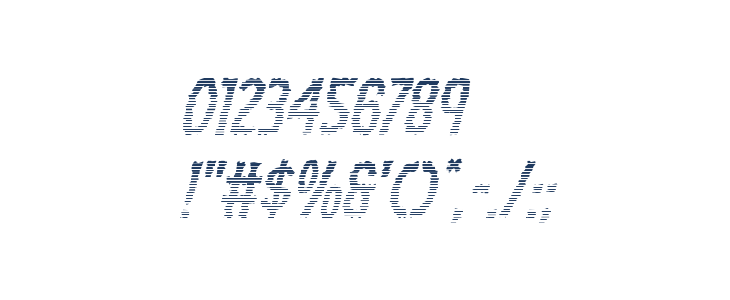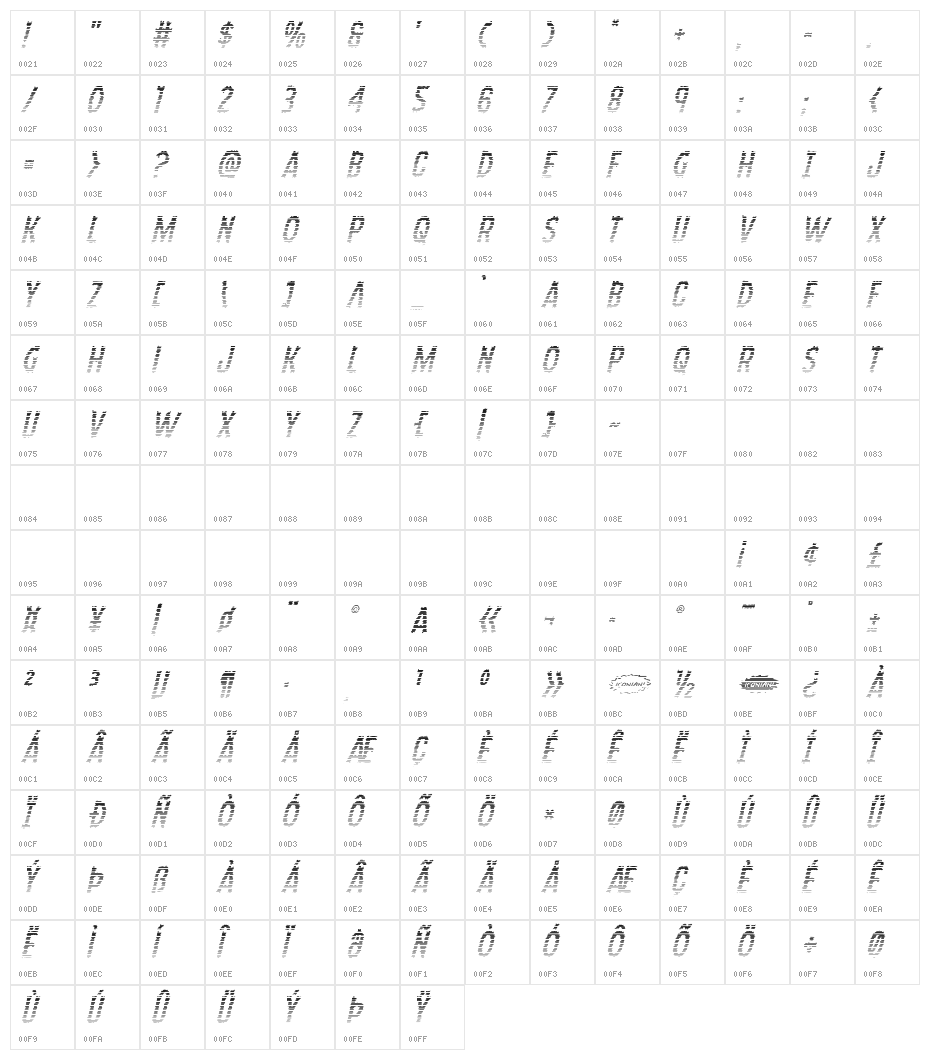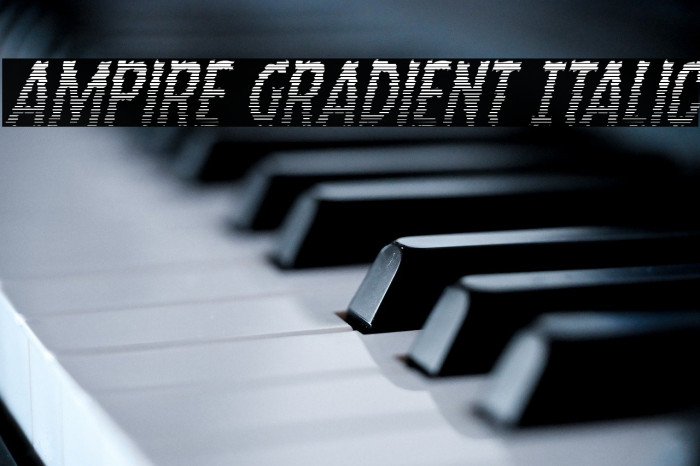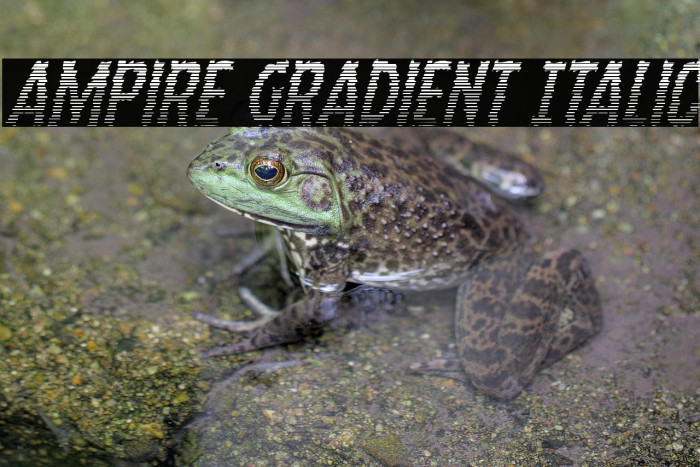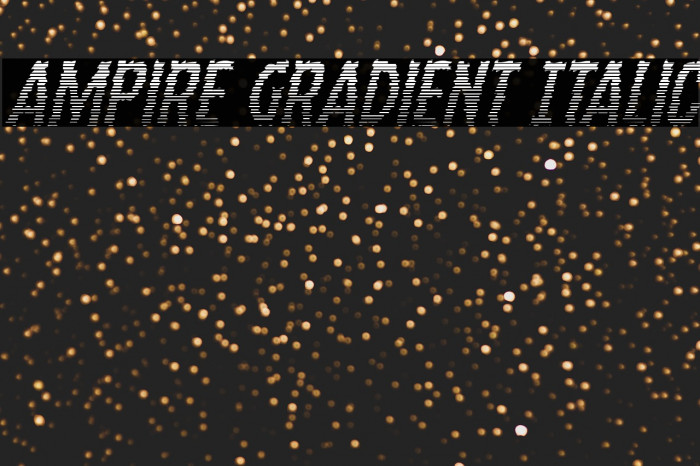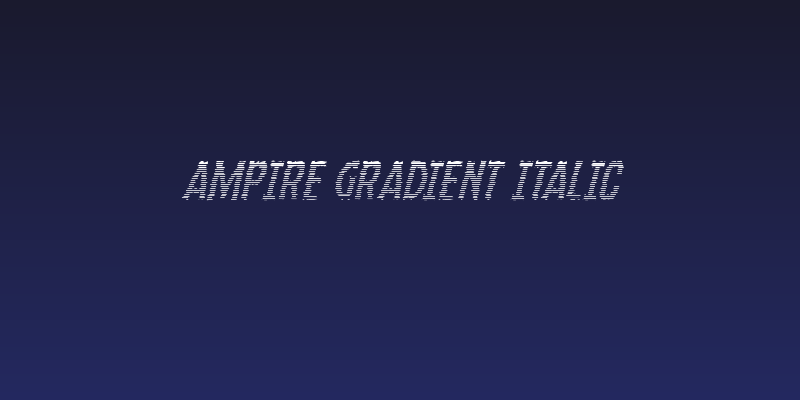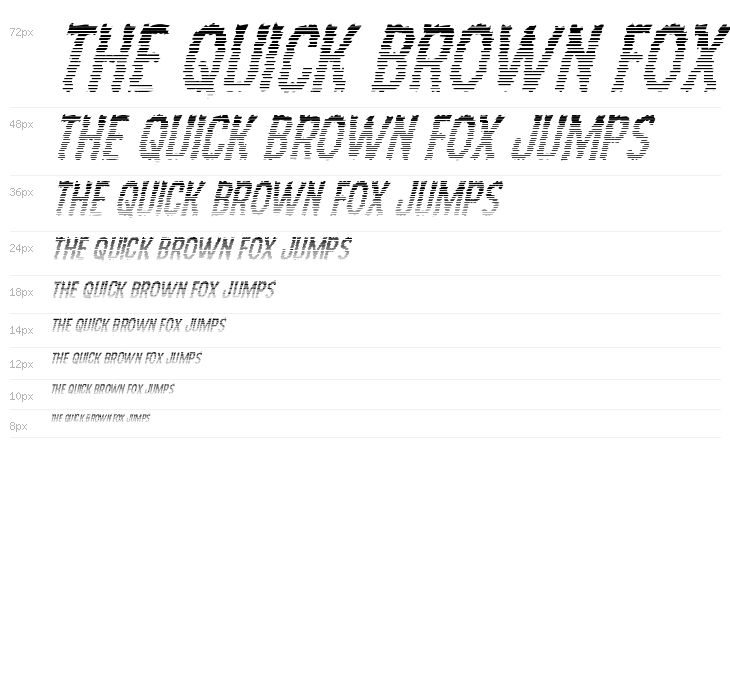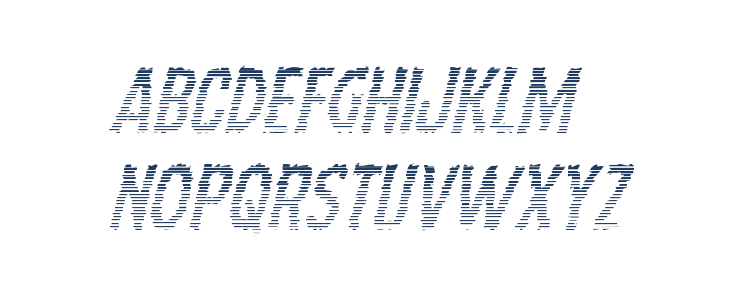
Ampire Gradient Italic Font
Ampire Gradient Italic Description
This font features a dynamic and modern design with a gradient effect that gives an impression of movement and speed. The italic style adds a sense of urgency and fluidity, making it stand out. The characters are composed of horizontal lines that create a unique visual texture, enhancing its contemporary appeal. This font is particularly effective for projects that require a bold statement or a futuristic look. The uppercase and lowercase letters maintain a consistent style, ensuring readability while still being visually striking. The numbers and special characters follow the same design principles, offering a cohesive appearance across all elements.
| Proposed Projects | Ideal for branding, sports team logos, tech-related projects, and dynamic posters. |